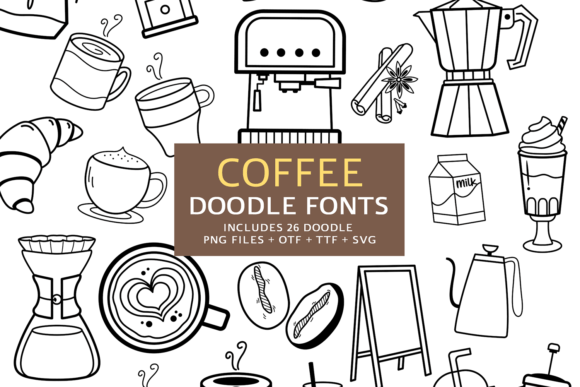
Coffee Doodle Font: The Perfect Addition to Your Design Projects
Coffee Doodle Font is a charming dingbats font that has taken the design world by storm. With its playful illustrations and cute aesthetic, it’s the perfect addition to any design project that requires a touch of whimsy. In this article, we’ll explore the features of Coffee Doodle Font, its uses, and why it’s a must-have for designers and non-designers alike.
What is Coffee Doodle Font?
Coffee Doodle Font is a type of dingbats font, which means it’s a collection of illustrations and symbols that can be used to add visual interest to designs. What sets Coffee Doodle Font apart is its unique and playful illustrations that are sure to capture the attention of your audience. The font features a wide range of illustrations, from cute animals to food items, and even objects, making it versatile and perfect for various design projects.
Features of Coffee Doodle Font
Coffee Doodle Font has several features that make it a standout font. Some of its notable features include:
- Playful illustrations: The font features a wide range of playful illustrations that are sure to add a touch of cuteness to your designs.
- Versatility: With a wide range of illustrations, Coffee Doodle Font can be used for various design projects, from children’s books to greeting cards and social media posts.
- High-quality: The font is high-quality, ensuring that your designs look professional and visually appealing.
Uses of Coffee Doodle Font
Coffee Doodle Font is a versatile font that can be used for various design projects. Some of its popular uses include:
- Children’s books: The font’s playful illustrations make it perfect for children’s books, adding a touch of whimsy and fun to the story.
- Greeting cards: Coffee Doodle Font can be used to create eye-catching greeting cards for special occasions, such as birthdays, holidays, and weddings.
- Social media posts: The font’s illustrations can be used to add visual interest to social media posts, making them stand out and engaging.
- Branding: Coffee Doodle Font can be used to create a unique and playful brand identity, perfect for businesses that want to stand out.
Benefits of Using Coffee Doodle Font
Using Coffee Doodle Font has several benefits, including:
- Increased engagement: The font’s playful illustrations can help increase engagement with your audience, making them more likely to interact with your design.
- Unique designs: Coffee Doodle Font allows you to create unique and visually appealing designs that stand out from the crowd.
- Time-saving: The font’s illustrations can save you time and effort, as you don’t have to create the illustrations from scratch.
Tips for Using Coffee Doodle Font
Here are some tips for using Coffee Doodle Font:
- Use it sparingly: Use the font’s illustrations sparingly to avoid overwhelming your design.
- Mix and match: Mix and match illustrations to create a unique and visually appealing design.
- Experiment: Experiment with different colors and design elements to make your design stand out.
- Keep it simple: Keep your design simple and clean to ensure that the illustrations are the focal point.
Coffee Doodle Font is a charming dingbats font that is perfect for adding a touch of whimsy to your design projects. With its playful illustrations and versatility, it’s a must-have for designers and non-designers alike. Whether you’re creating a children’s book, greeting card, or social media post, Coffee Doodle Font is sure to make your design stand out.
- What is Coffee Doodle Font? Coffee Doodle Font is a charming dingbats font featuring playful illustrations, perfect for creating eye-catching designs with a touch of cuteness.
- What is Coffee Doodle Font used for? Coffee Doodle Font can be used for various design projects, including children’s books, greeting cards, social media posts, and branding.
- Can I customize Coffee Doodle Font? Yes, you can customize the illustrations to fit your design needs.